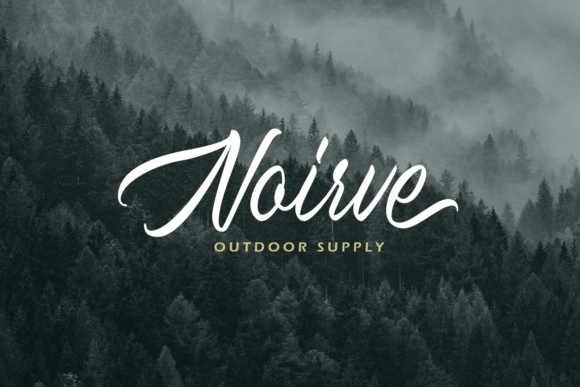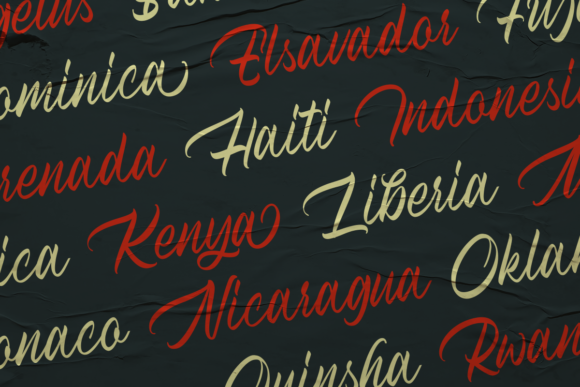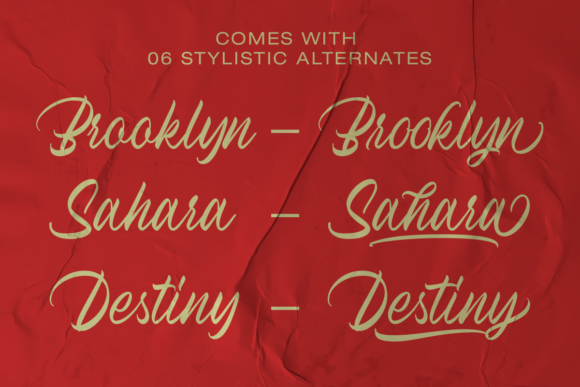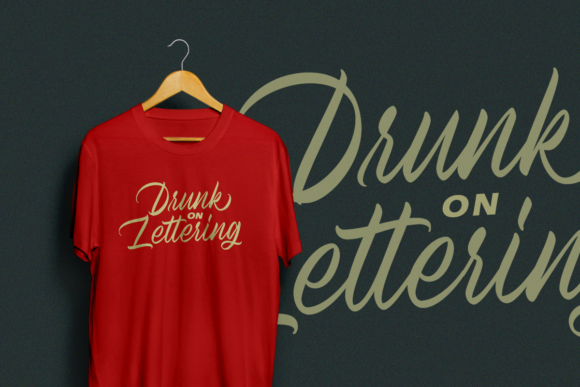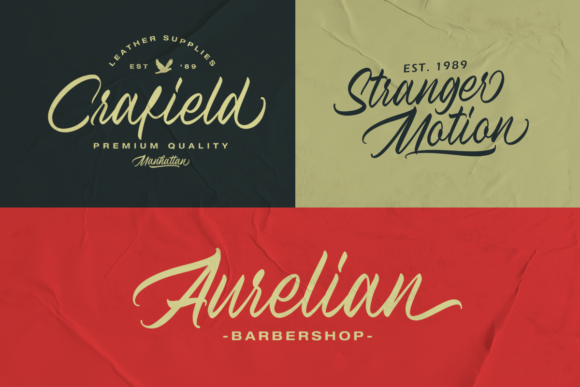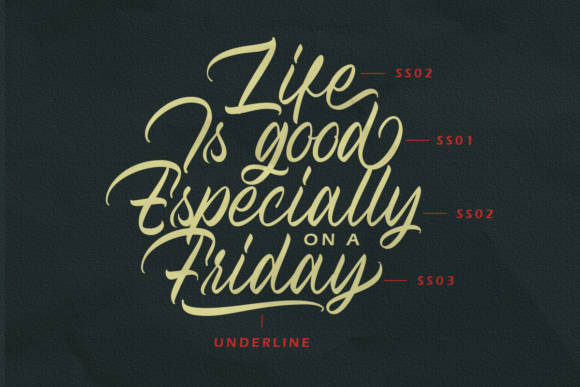
Introduction to Holystone Font
Have you ever been working on a design project and felt like something was missing? A certain je ne sais quoi that would elevate it from great to truly exceptional? For designers, finding that perfect font can be the key to unlocking a design’s full potential. And, trust us, you’re in luck because today we’re going to talk about a font that’s sure to become your new favorite – the Holystone Font.
As a valuable design resource, the Holystone Font offers a beautiful script style that’s perfect for a wide range of creative projects. Whether you’re working on branding, headings, wedding designs, or invitations, this high-quality font is sure to impress. Plus, with a transparent background, it’s incredibly versatile and easy to use.
Key Features of Holystone Font
- Unique blend of modern and vintage elements, ideal for creative projects requiring a distinctive touch.
- Transparent background, allowing for easy layering and customization in various design applications.
- Includes a comprehensive character set, covering a wide range of languages and special characters.
- Perfect for designers working on creative projects, such as branding, advertising, and editorial content, where a unique and eye-catching font is essential.
Honest Review: Holystone Font
I recently stumbled upon the Holystone Font while searching for high-quality design resources for my creative project. I was pleasantly surprised by its unique style and versatility.
- ✨ Unique blend of modern and vintage elements: The Holystone Font seamlessly combines clean lines with subtle, nostalgic details.
- ✨ Transparent background: The font’s transparent background makes it easy to layer over images and other design elements.
- ⚠️ Limited character set: While the Holystone Font is an excellent addition to any design arsenal, its character set is somewhat limited, which may make it less suitable for extended text-based projects.
Overall, I’m impressed with the Holystone Font’s unique style and versatility. While it may not be the perfect choice for every design project, it’s an excellent resource for designers looking to add a touch of sophistication and elegance to their creative work.
The Holystone Font is a versatile design resource suitable for various creative projects. This free download offers a high-quality font with a transparent background, making it easy to integrate into your designs.
The Holystone Font is ideal for:
- Creating professional-looking graphics and social media posts.
- Designing logos and branding materials.
- Adding a touch of elegance to presentations and documents.
Lato is a beautiful sans-serif font that is perfect for design projects requiring a touch of elegance. It is available for free download and has a high-quality design. When to use: headings, titles, and short paragraphs. Lato is more elegant and has a larger x-height compared to Holystone Font, making it a better choice for luxury and high-end designs.
Q: Does Holystone Font have a transparent background?
No, Holystone Font does not have a transparent background. The font is designed as a solid design resource and is best suited for use on a solid-colored background.
Q: What is the recommended usage for Holystone Font?
Holystone Font is a high-quality design resource that is suitable for use in a variety of creative projects, including digital design, print design, and web design. It is particularly well-suited for use in headings, titles, and other text elements where a bold, modern font is desired.